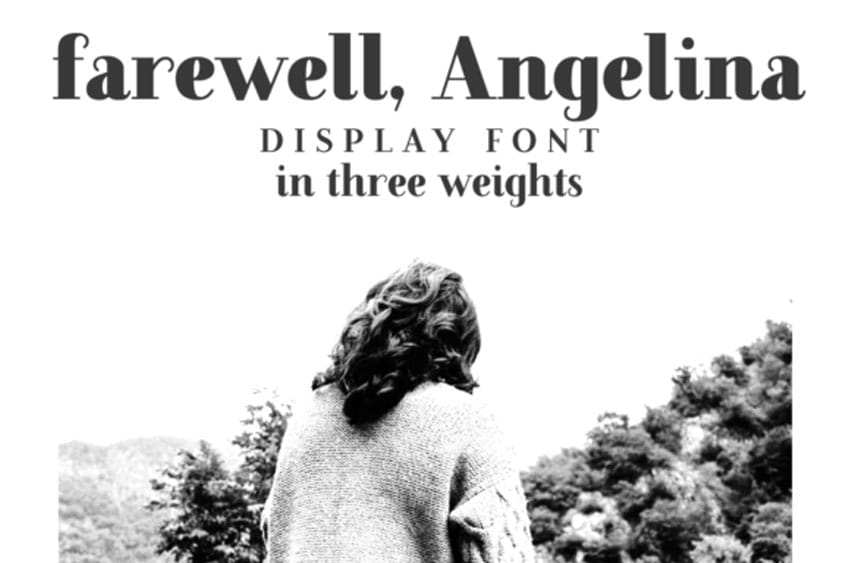
Farewell Angelina Font is an elegant serif display font with a feminine flair.
It has a classy, elegant, and modern look that can be used for logos, branding, invitations, stationery, wedding designs, social media posts, and much more!